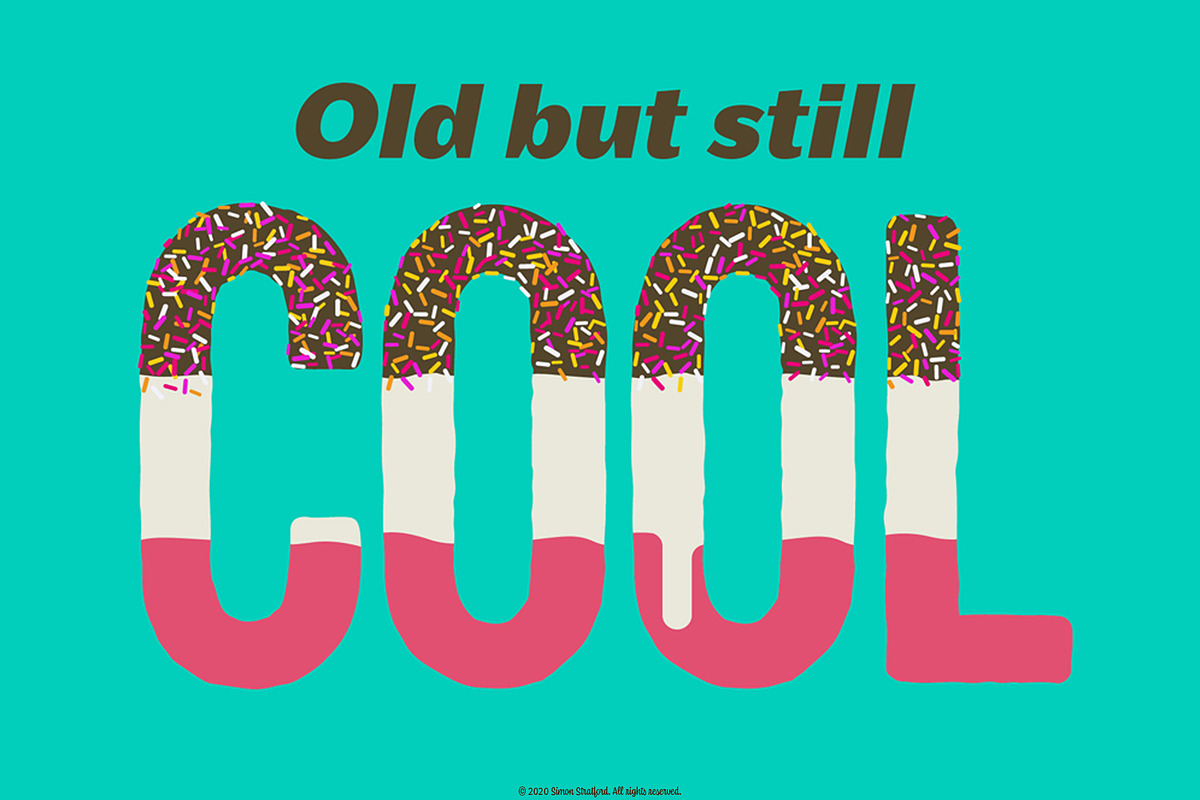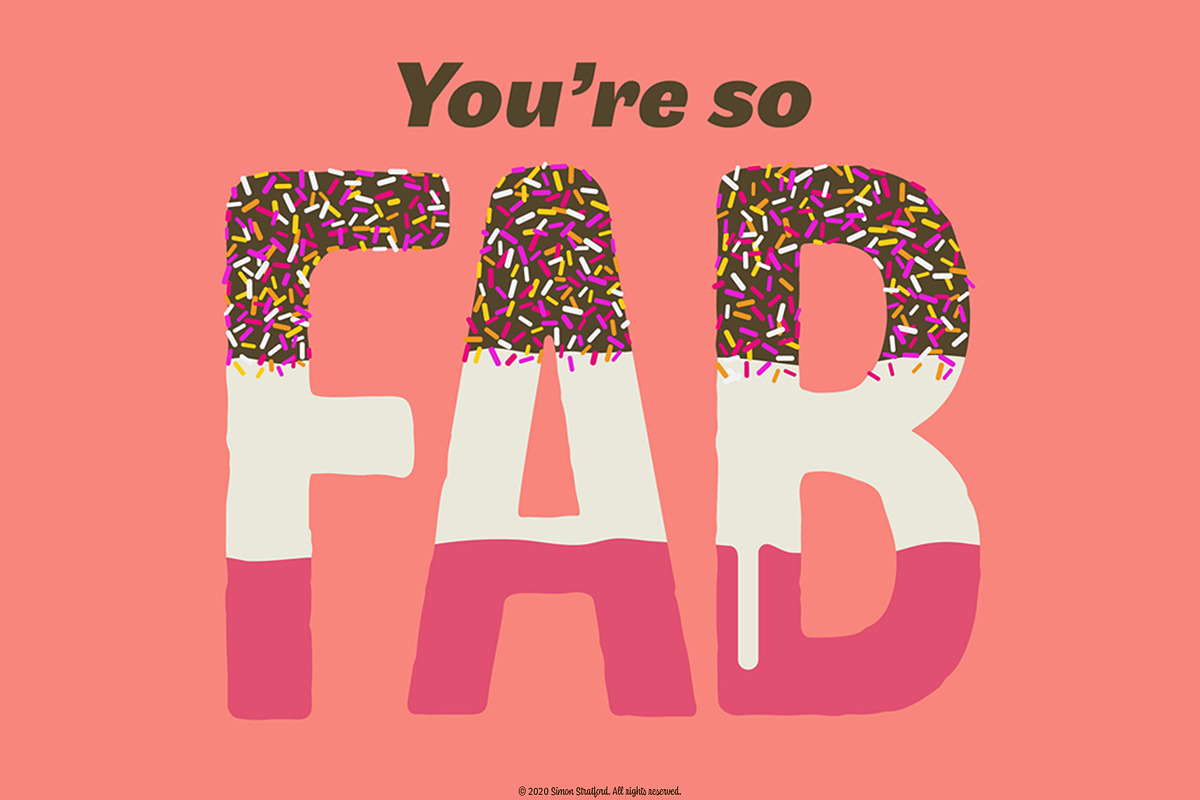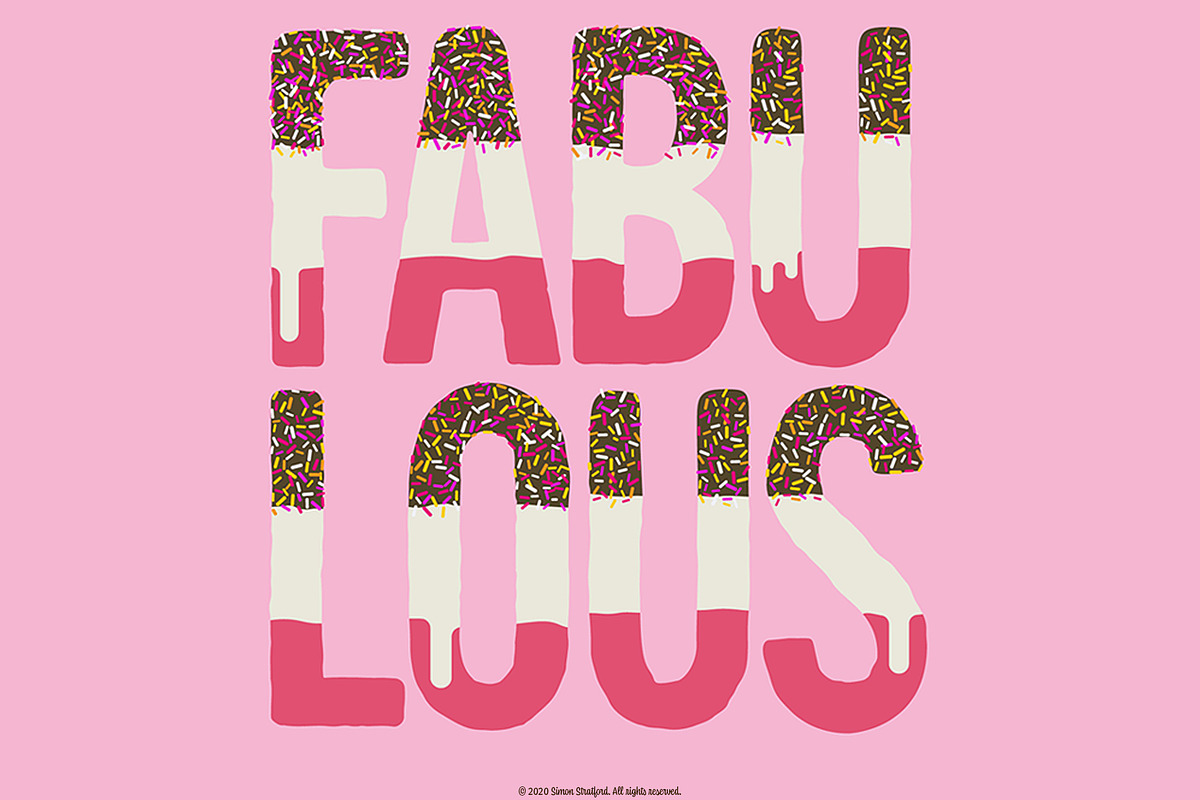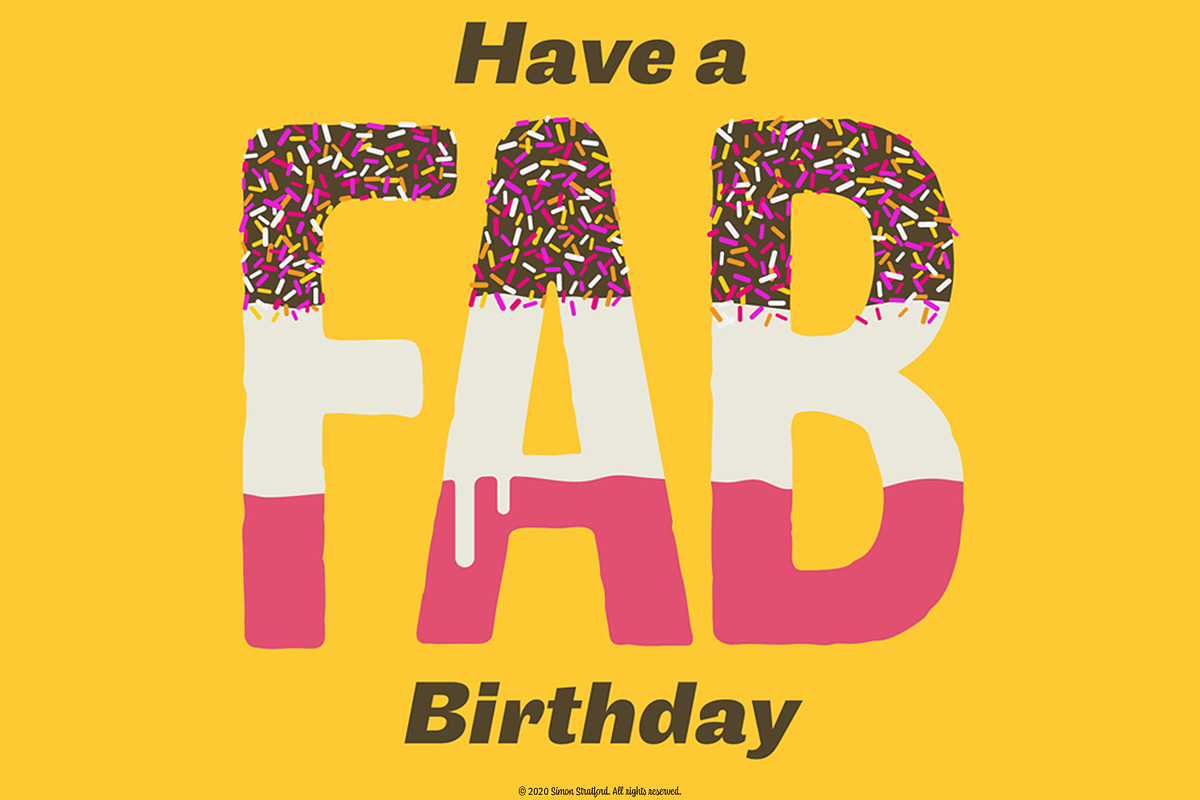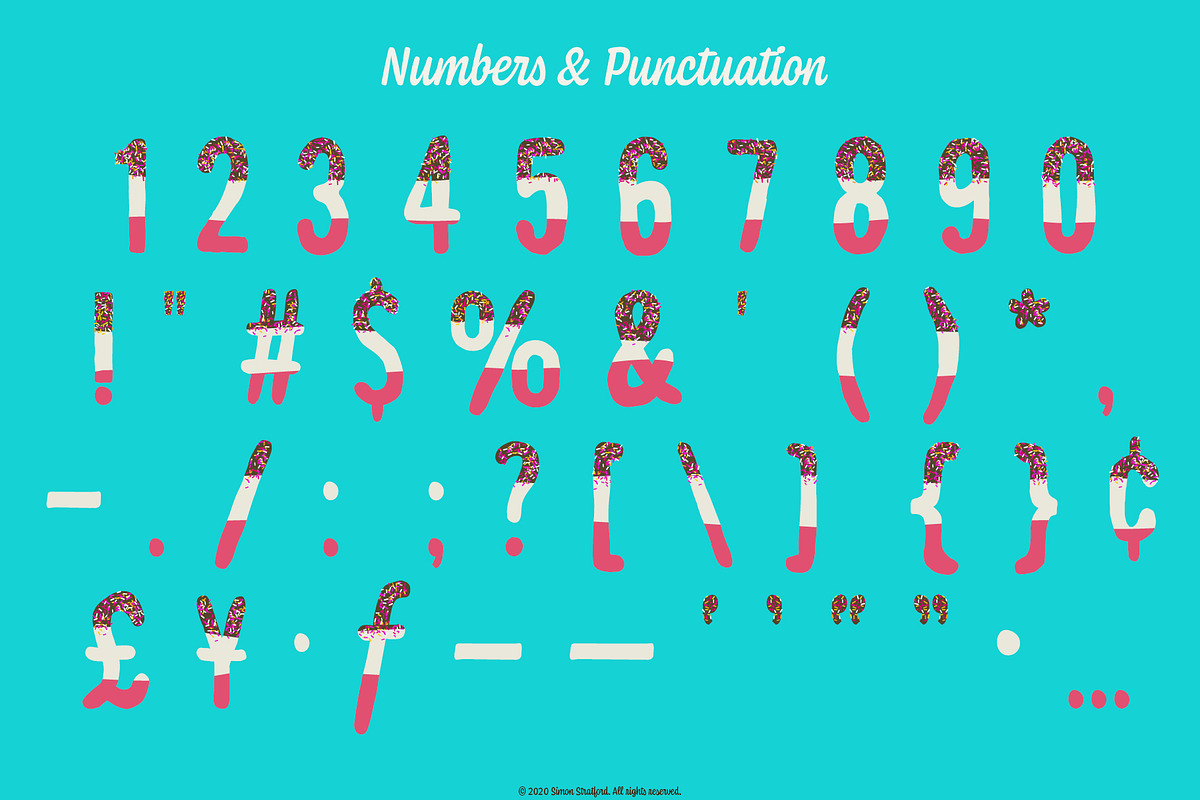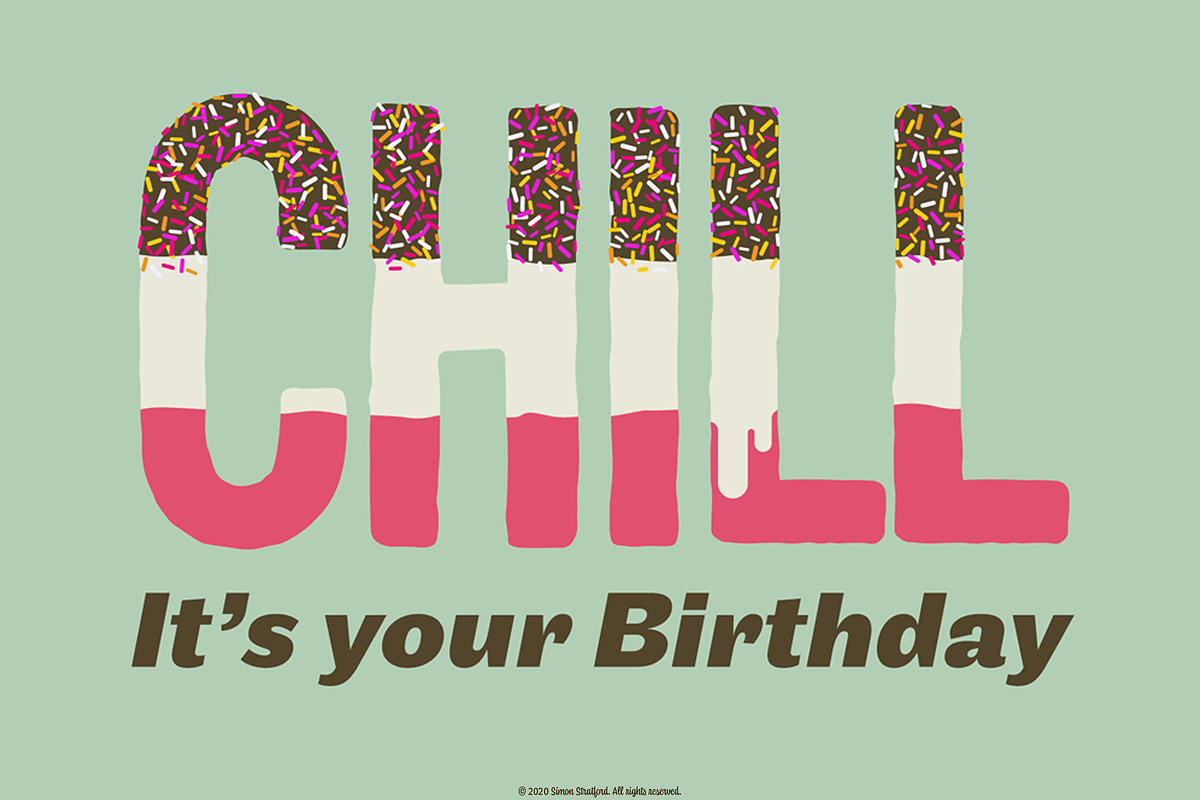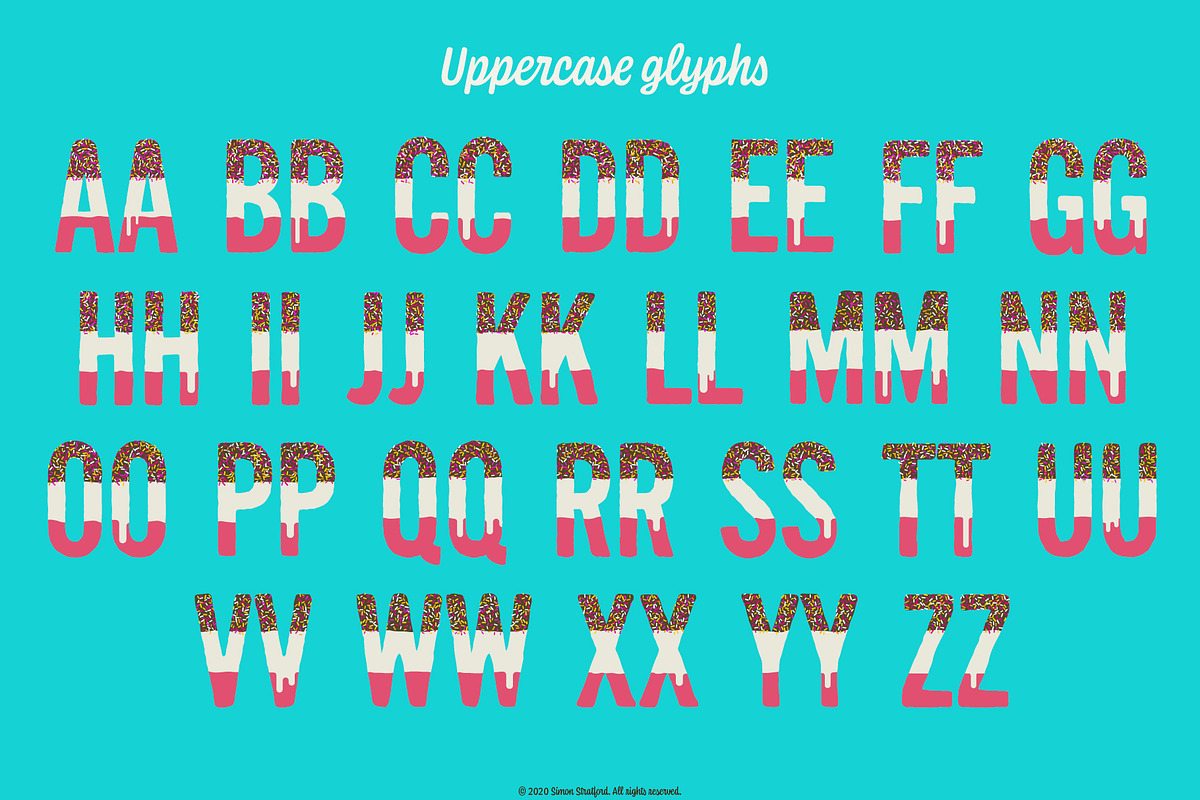
Display Font — Fab Ice Lolly type
Display font Fab font my new OpenType SVG color typeface. Fonts don't get more vintage than this. Inspired by the fab ice lollies from 1967 complete with candy sprinkles on top—how cool is that.
This Ice lolly font would be perfect for birthday cards, posters, flyers, bold headlines and anything where you want that cool retro look and feel.
Display font Fab ice lolly
If Fab font were a celebrity it would be more Elton John than Jon Bon Jovi—fabulous darling.
Fab ice lolly has a limited character set that includes;
A-Z with 1 alternative
What are color fonts?
They are the next big thing in typography, they bring rich colour to type, embedding them inside the typeface—no more black and white.
- Fab font is a unicase typeface, which means it only contains uppercase characters.
- Fab ice lolly has a limited character set that includes; A-Z with 1 alternative Basic punctuation What are color fonts?